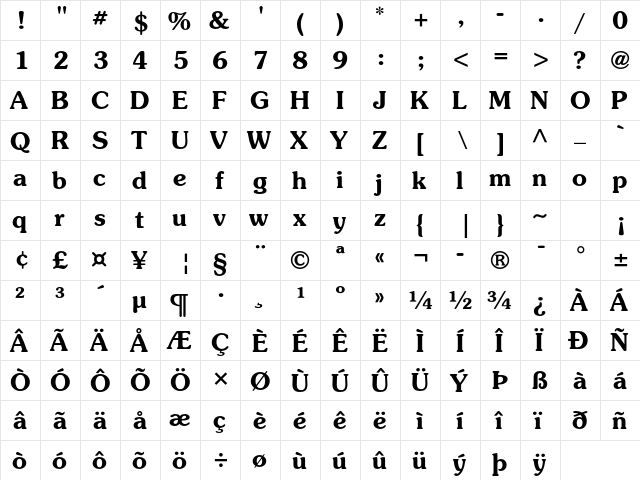
Adite Bold
Design Context for Adite Typeface
Adite is a composed and adaptable typeface that performs quietly and consistently across a wide range of design contexts. Its bold stroke weight gives it real presence on the page.